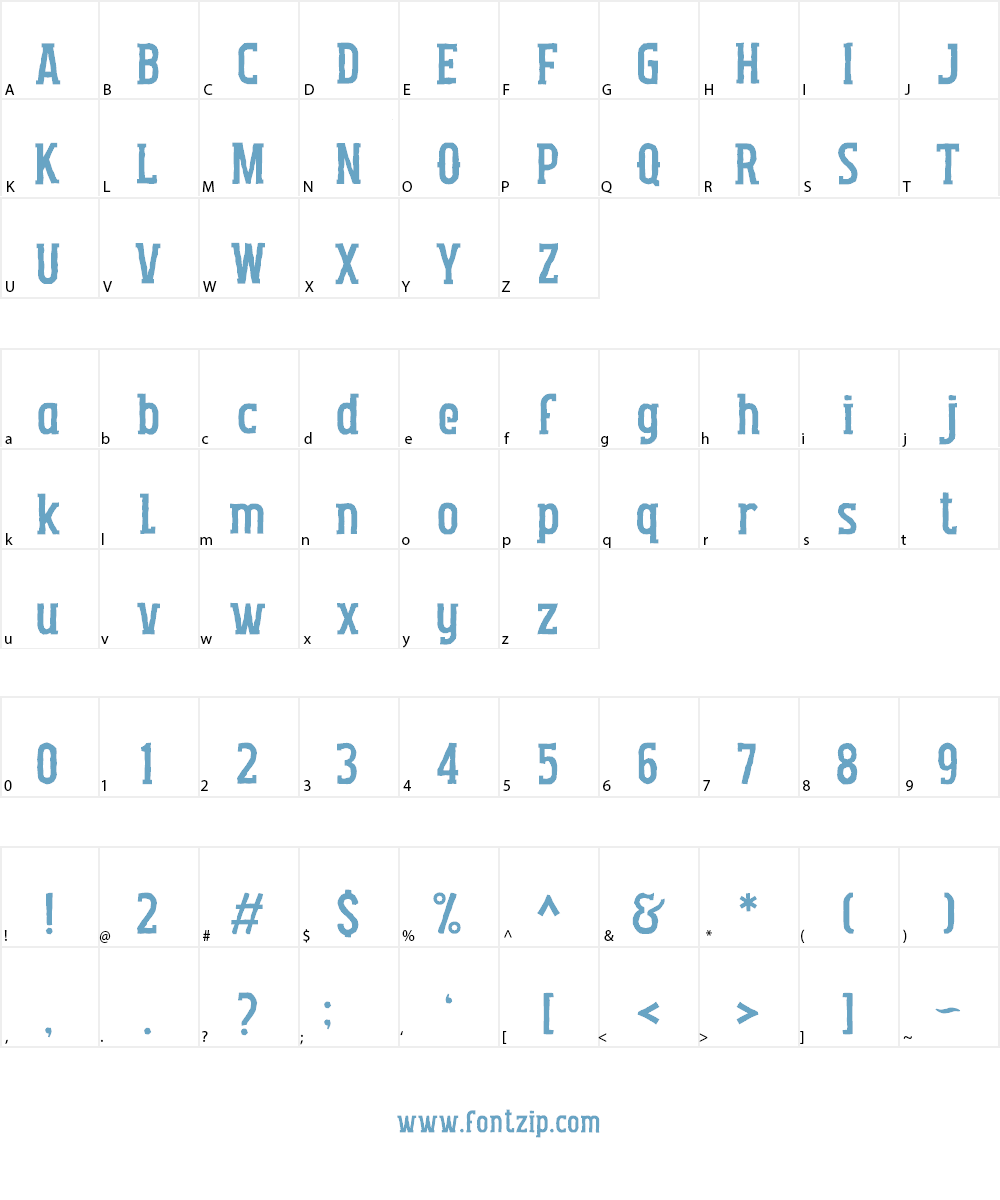
Hood Brothers Font
Hood Brothers is kind of Vintage Typefont. This is Regular - Sharpness style. There are two files includ .ttf and .otf files format. Many thanks for download, install and Use it. Goodluck for all kind of your project.